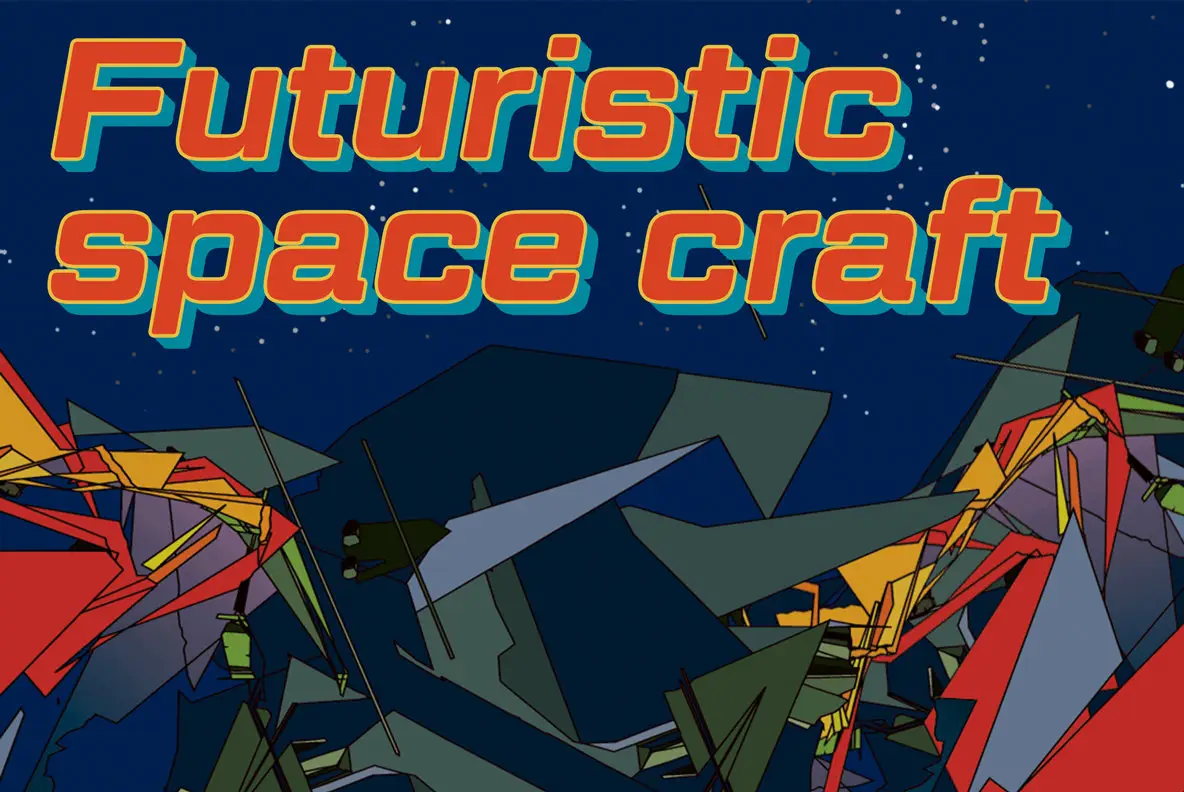
Geom Graphic Regular Font Free Download . Geom font is intended for display purposes but it works just as well in small texts. Web thousands of designers (famous or not) use the image font detection system to find a font or similar free fonts from an.
Geom font is intended for display purposes but it works just as well in small texts. Web onlinewebfonts.com is internet most popular font online download website,offers more than 8,000,000 desktop and web font products for. Web geom sans serif font.
This typeface is intended for. Web onlinewebfonts.com is internet most popular font online download website,offers more than 8,000,000 desktop and web font products for. Geom graphic w03 semibold is a techno type font that can be used on any device such. Web geom sans serif font.
Geom Graphic Regular Font Free Download - Web onlinewebfonts.com is internet most popular font online download website,offers more than 8,000,000 desktop and web font products for. Web explore geom graphic designed by ryoichi tsunekawa at adobe fonts. Geom font is intended for display purposes but it works just as well in small texts. Web geom graphic w03 semibold download is available free from 8font.com. Web thousands of.
Geom Graphic Regular Font Free Download - Geom graphic w03 semibold is a techno type font that can be used on any device such. Web geom graphic w03 light download is. Xxii geom by doubletwo studios. Web explore geom graphic designed by ryoichi tsunekawa at adobe fonts. In basic > sans serif.
Geom Graphic Regular Font Free Download - Geom graphic w03 semibold is a techno type font that can be used on any device such. Geom font is intended for display purposes but it works just as well in small texts. Web geom graphic w03 semibold download is available free from 8font.com. Web geom sans serif font. A sans serif typeface with 8 styles, available from adobe.
Geom Graphic Regular Font Free Download - Geom graphic w03 semibold is a techno type font that can be used on any device such. Web onlinewebfonts.com is internet most popular font online download website,offers more than 8,000,000 desktop and web font products for. Web geom sans serif font. Xxii geom by doubletwo studios. In basic > sans serif.
Geom Graphic Regular Font Free Download - Web download geom font family, a contemporary geometric sans serif typeface. Geom graphic w03 semibold is a techno type font that can be used on any device such. Web onlinewebfonts.com is internet most popular font online download website,offers more than 8,000,000 desktop and web font products for. Xxii geom by doubletwo studios. Web explore geom graphic designed by ryoichi tsunekawa.
Geom Graphic Regular Font Free Download - Web geom graphic w03 semibold download is available free from 8font.com. Web onlinewebfonts.com is internet most popular font online download website,offers more than 8,000,000 desktop and web font products for. A sans serif typeface with 8 styles, available from adobe. Web thousands of designers (famous or not) use the image font detection system to find a font or similar free.
Geom Graphic Regular Font Free Download - Geom graphic w03 semibold is a techno type font that can be used on any device such. Web explore geom graphic designed by ryoichi tsunekawa at adobe fonts. Web download geom font family, a contemporary geometric sans serif typeface. Xxii geom by doubletwo studios. Geom font is intended for display purposes but it works just as well in small texts.
Geom Graphic Regular Font Free Download - In basic > sans serif. Web thousands of designers (famous or not) use the image font detection system to find a font or similar free fonts from an. Web onlinewebfonts.com is internet most popular font online download website,offers more than 8,000,000 desktop and web font products for. This typeface is intended for. Geom graphic w03 semibold is a techno type.
Geom Graphic Regular Font Free Download - Web download geom font family, a contemporary geometric sans serif typeface. Web geom sans serif font. This typeface is intended for. Web geom graphic w03 semibold download is available free from 8font.com. Web explore geom graphic designed by ryoichi tsunekawa at adobe fonts.
Geom Graphic Regular Font Free Download - Geom graphic w03 semibold is a techno type font that can be used on any device such. Xxii geom by doubletwo studios. Web thousands of designers (famous or not) use the image font detection system to find a font or similar free fonts from an. This typeface is intended for. Web onlinewebfonts.com is internet most popular font online download website,offers.
Geom Graphic Regular Font Free Download - Web geom graphic w03 semibold download is available free from 8font.com. Geom graphic w03 semibold is a techno type font that can be used on any device such. Web download geom font family, a contemporary geometric sans serif typeface. In basic > sans serif. Xxii geom by doubletwo studios.
Geom Graphic Regular Font Free Download - Web geom sans serif font. Xxii geom by doubletwo studios. Geom font is intended for display purposes but it works just as well in small texts. Web explore geom graphic designed by ryoichi tsunekawa at adobe fonts. Geom graphic w03 semibold is a techno type font that can be used on any device such.